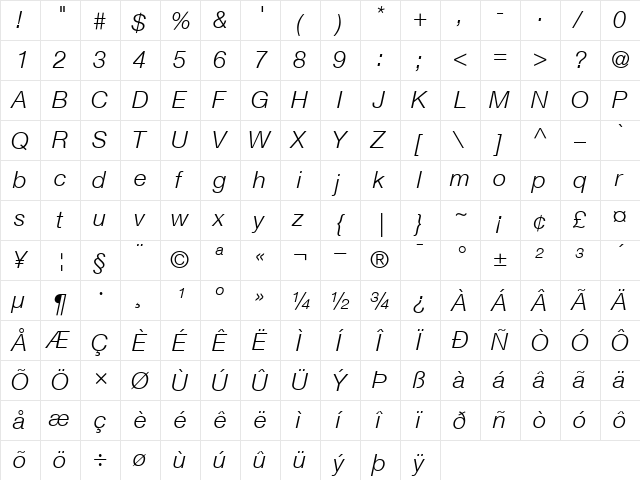
Helvetica46-Light LightItalic Font Preview
Helvetica46-Light LightItalic
Helvetica46-Light LightItalic Font Details
Design Context for Helvetica46-Light Typeface
Helvetica46-Light offers clean, dependable letterforms without strong stylistic allegiance, making it a practical choice for designers who need flexibility. The dynamic lean of this cut emphasises speed and emphasis in any layout. The delicate stroke weight brings airiness and refinement to layouts.
Pro Tip: Use Helvetica46-Light for emphasis, pull quotes, and subheadings where its slanted energy can add rhythm to the layout.